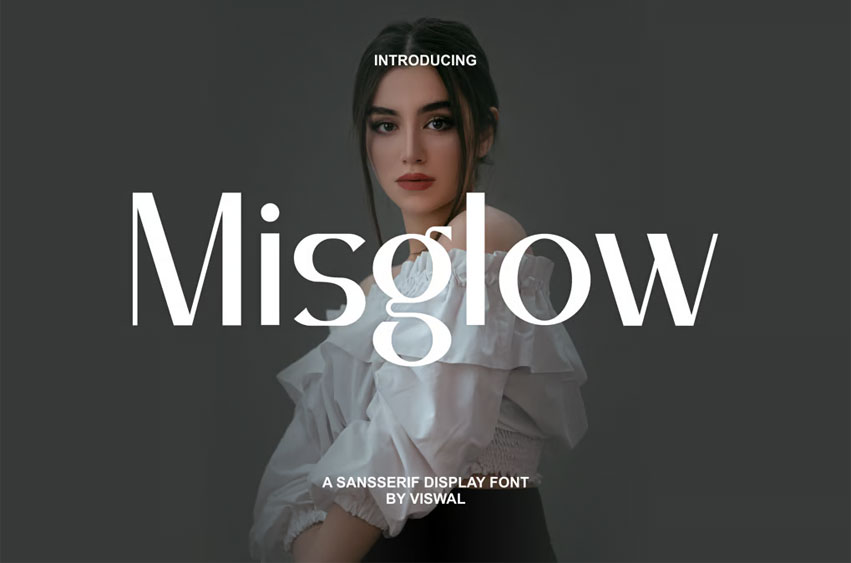
Misglow Font Is A Modern Sans Font. Can Make It Easier To Convey The Message In Your Design. Font Is Suitable For logos, Labels, badges, Branding, magazines, posters, titles, Gigs, covers, etc. Our Fonts Have Uppercase & Lowercase, numerals & Punctuation, and Opentype Features. For Amazing Designs, You Can Mix With Other Fonts As A Complement.